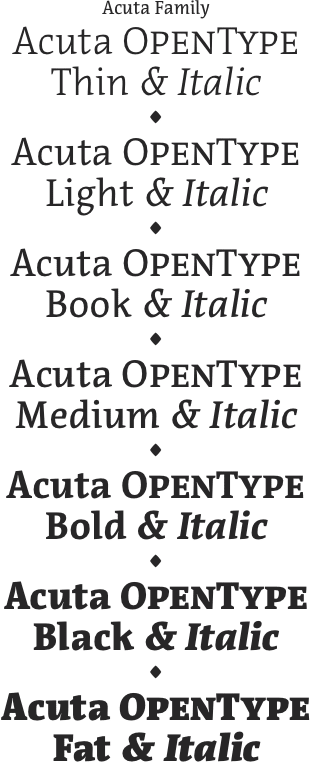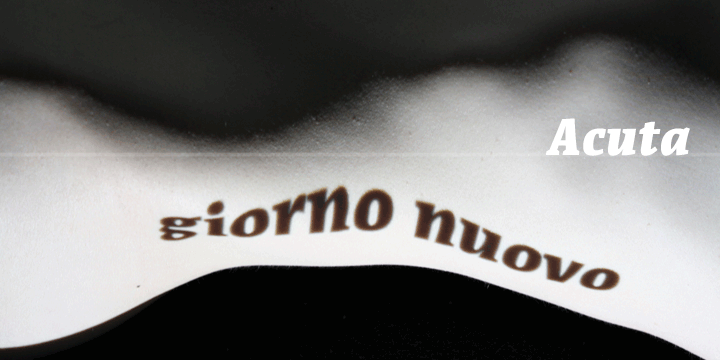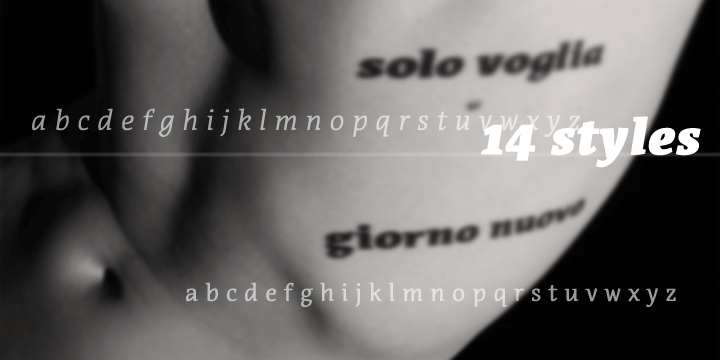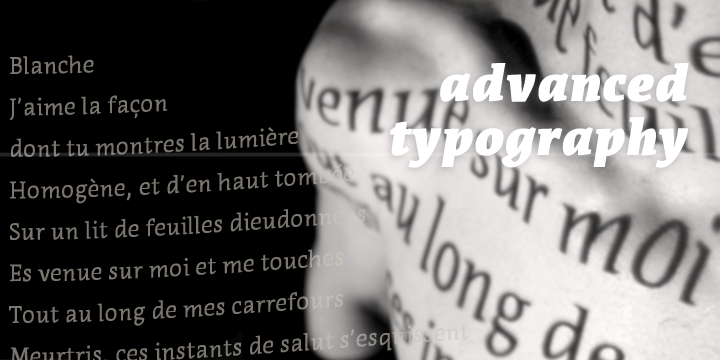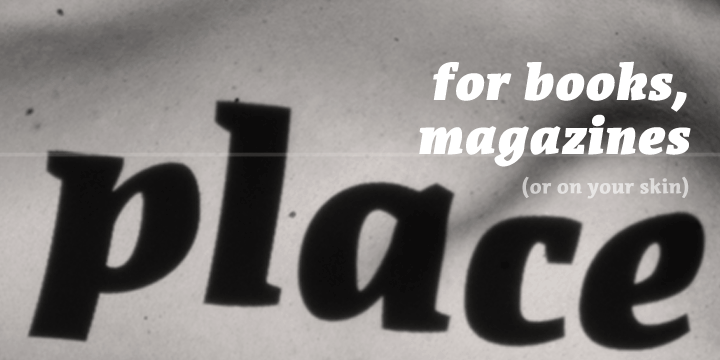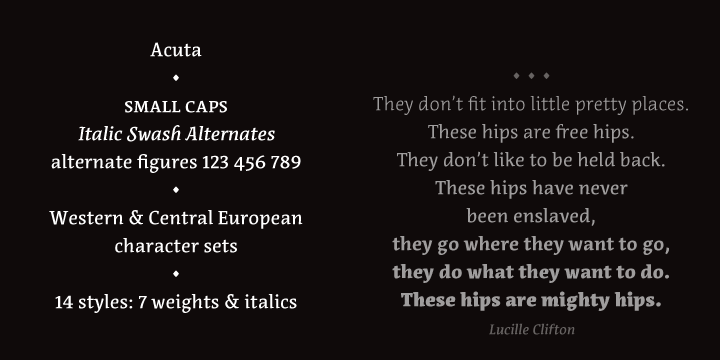
Acuta Family (14 fonts) (Anatoletype)
Acuta is a new all-purpose text serif with a good readability and a contemporary, robust look thanks to its low-medium contrast. The differences between thicks and thins are less strongly marked than in oldstyle text faces; yet the diagonal stress needed to facilitate reading is partly provided by the letter shape itself: sharp angles and italic construction give the right dynamism to the text.AnatoleType